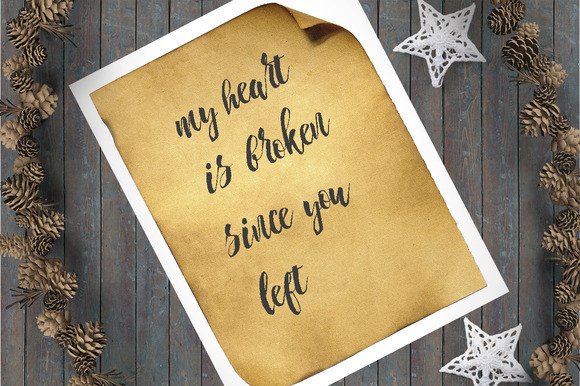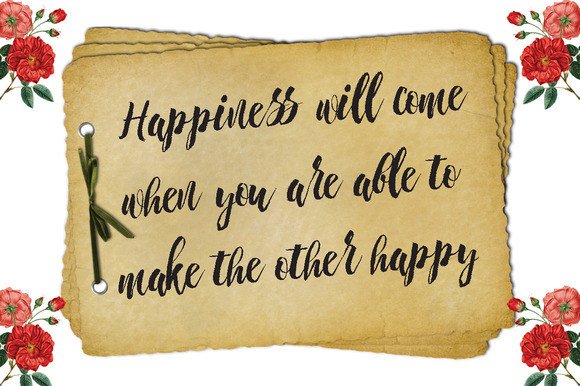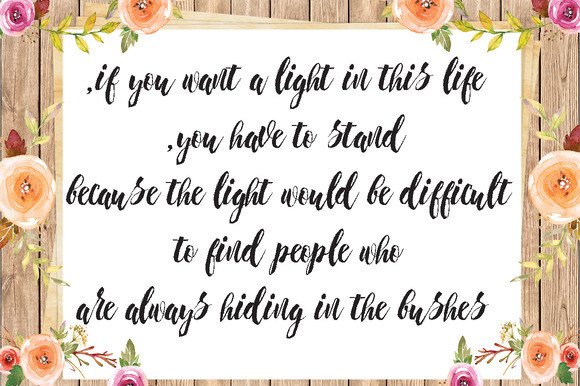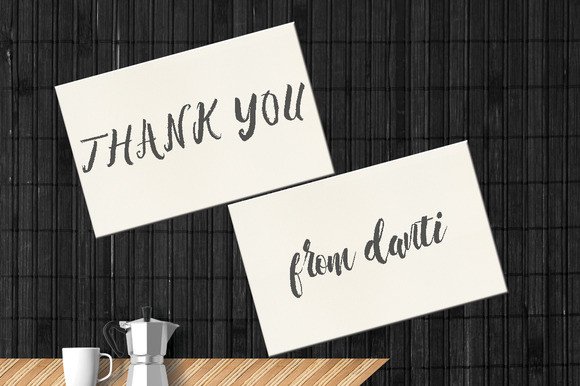
Chameleon Font
About Chameleon Font
Chameleon is a beautiful and unique hand-drawn typeface. It is a mix of modern calligraphy typefaces and calligraphy writing styles. Will look beautiful on wedding invitations, badges, posters, labels, t-shirts, and much more.